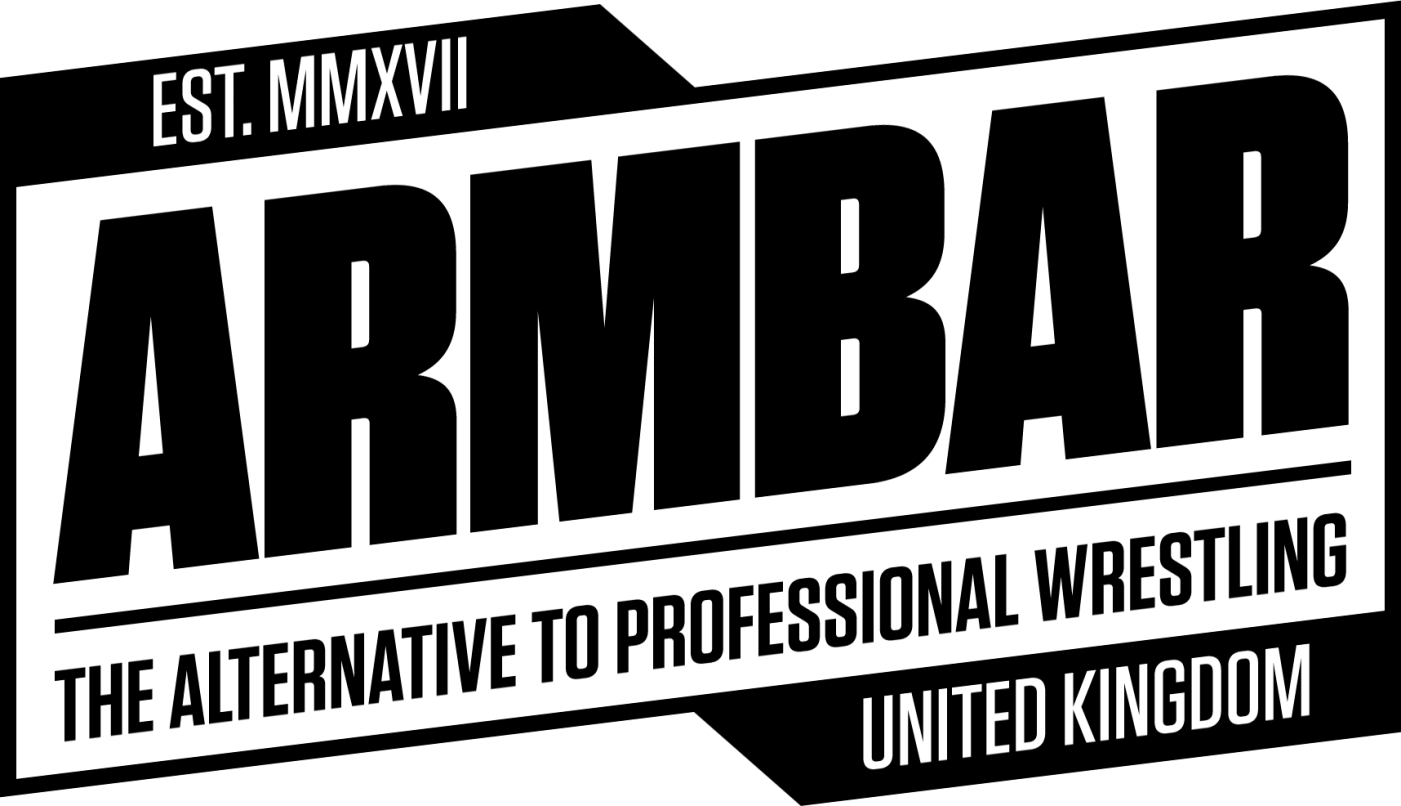
Looking for the font of this ARMBAR e-fed logo made in 2017
This is a wordmark logo made for an e-fed in 2017. I'm looking to see if anyone can identify the font used here.
Looks like "ITC Impact" which someone italicised.
I think it may be Tungsten! Thanks!
Now I'm trying to figure out which of the 32 styles and what they did to slate it like that. Thanks for the help! I appreciate the response.